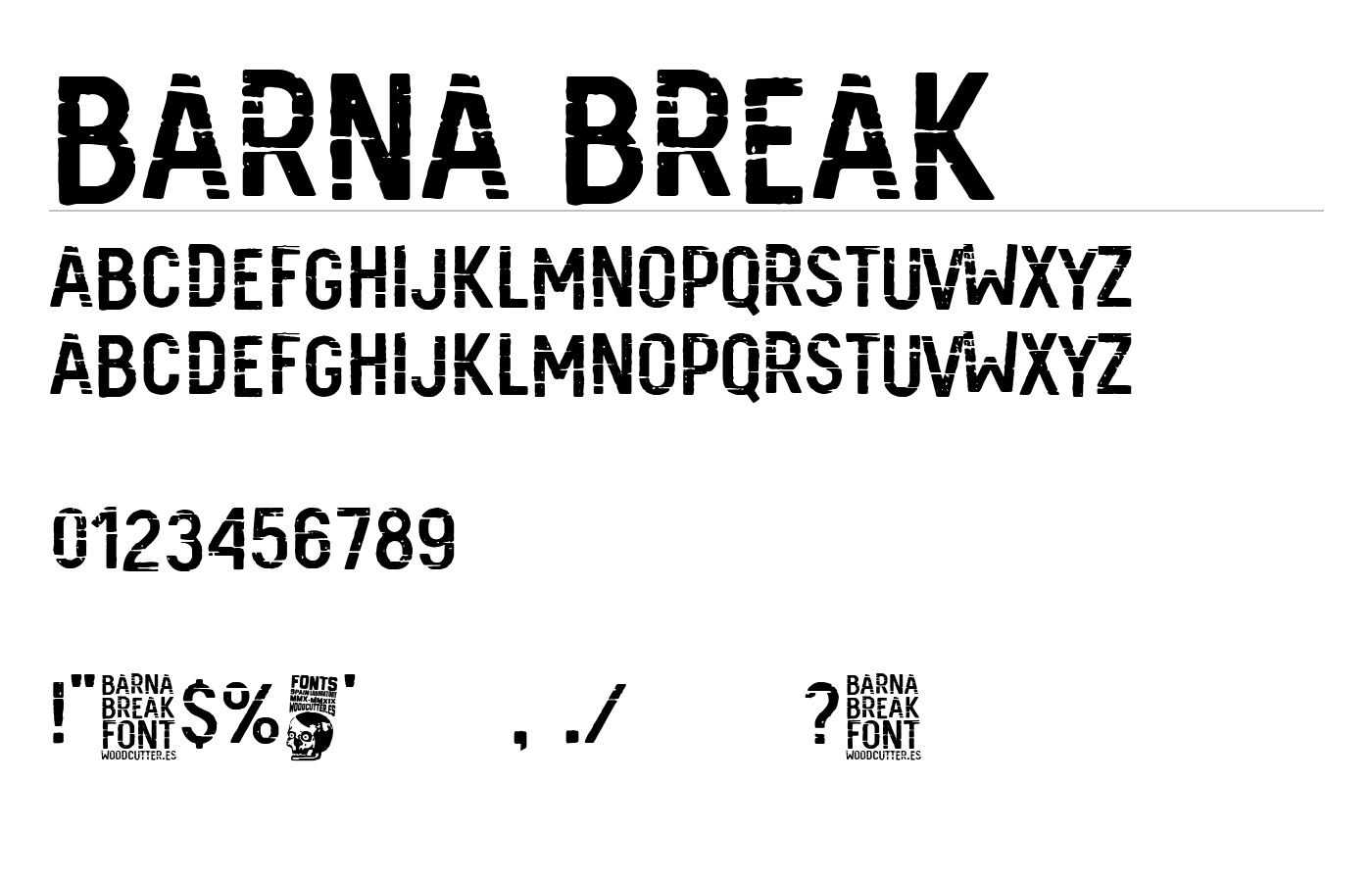
Barna Break is a bold, condensed sans-serif font with a distressed, broken texture that gives it a rugged, industrial feel. Its uppercase-only letters feature a strong vertical rhythm with rough, uneven edges that create a sense of worn, vintage character. This font is perfect for bold headlines, posters, and branding projects that seek a gritty, edgy, and urban aesthetic.
Barna Break Font
About Barna Break Font